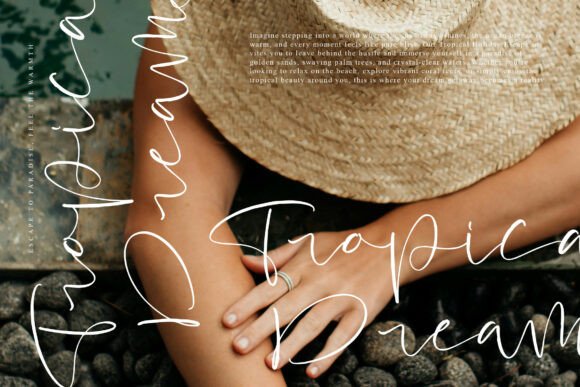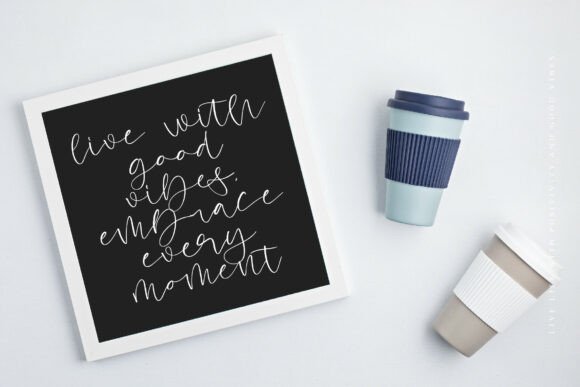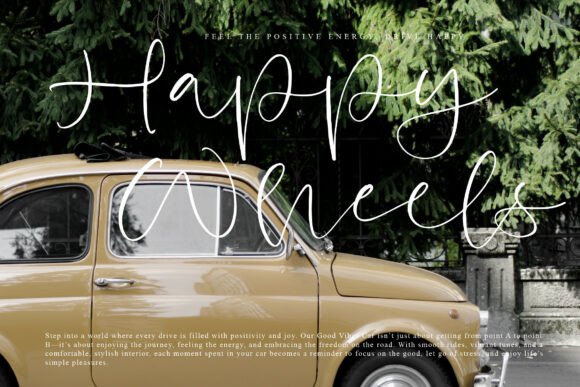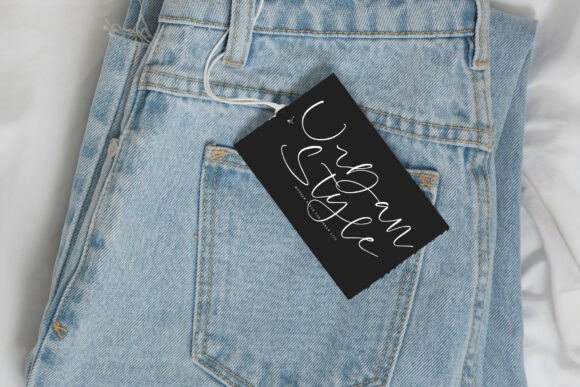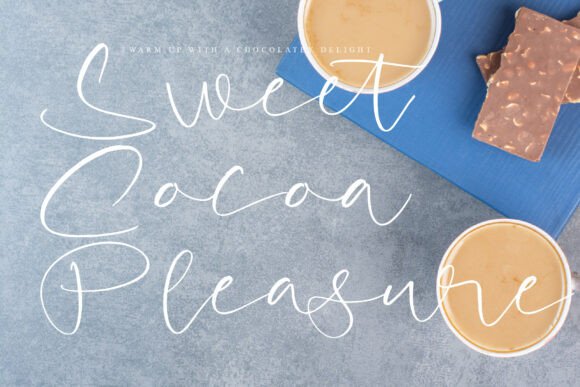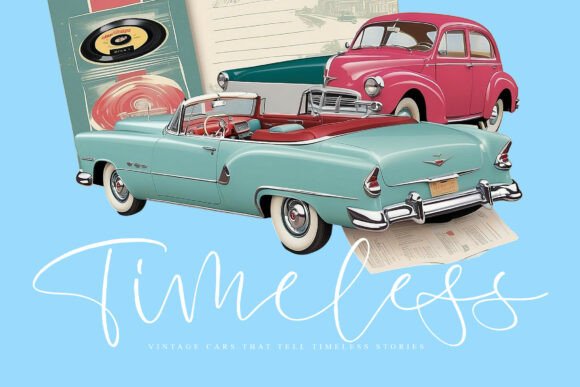
Introduction to Paradisheart Regular Font
Have you ever stumbled upon a font that instantly transports you to a world of elegance and refinement? For designers, finding the perfect font can be a game-changer – the difference between a project that feels amateurish and one that exudes sophistication. For me, that font is the Paradisheart Regular Font, a delicate handwritten script that embodies the perfect blend of grace and spontaneity.
With its sweeping curves and fluid letterforms, Paradisheart Regular Font lends a natural rhythm that mimics elegant calligraphy, making it perfect for projects that require a touch of softness and sophistication. Whether you’re working on a branding project, a romantic packaging design, or a heartfelt social media post, this font is sure to bring warmth and beauty to every letter it touches.
Key Features of Paradisheart Regular Font
- Regular font style, perfect for body text, headings, and other design applications where a clean and simple look is desired.
- Can be used in various design contexts, including logos, branding, and digital graphics, thanks to its versatility and high-quality design.
Honest Review: Paradisheart Regular Font
I recently stumbled upon the Paradisheart Regular Font and I must say, it’s been a game-changer for my creative projects. As a designer, I’m always on the lookout for high-quality fonts that can elevate my designs and this one definitely delivers.
- ✨ Elegant and sophisticated design aesthetic that’s perfect for luxury brands and high-end designs.
- ✨ Smooth and refined lines that make it easy to read and understand.
- ⚠️ Limited character set, which may not be ideal for extensive text-based designs.
- ⚠️ Not suitable for informal or casual designs, as it may come across as too formal.
Overall, I’m thoroughly impressed with the Paradisheart Regular Font. Its high-quality design and versatility make it a fantastic addition to any designer’s toolkit. Whether you’re working on a luxury brand or a high-end creative project, this font is sure to deliver.
Tips for Getting the Most Out of Paradisheart Regular Font
To maximize the effectiveness of Paradisheart Regular Font, use it on a transparent background to create a clean and modern look. Experiment with different font sizes and combinations to add visual interest to your design.